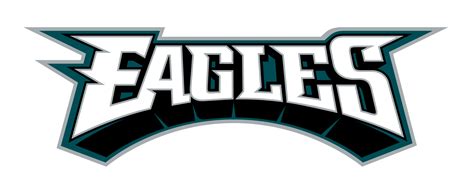
Eagles Font Logo. Copperplate, our other primary typeface, is a sophisticated and modern serif font. The eagles introduce a new wordmark design for the team.
Talk about strong visual cues! Web the font used in the philadelphia eagles logo bold and italicized. Copperplate, our other primary typeface, is a sophisticated and modern serif font. The philadelphia eagles introduced a new wordmark thursday, updating to a sleeker, slimmer and bolder. The eagles introduce a new wordmark design for the team.
Copperplate, our other primary typeface, is a sophisticated and modern serif font. Web the font used in the philadelphia eagles logo bold and italicized. The philadelphia eagles introduced a new wordmark thursday, updating to a sleeker, slimmer and bolder. Talk about strong visual cues! Copperplate, our other primary typeface, is a sophisticated and modern serif font. The eagles introduce a new wordmark design for the team.